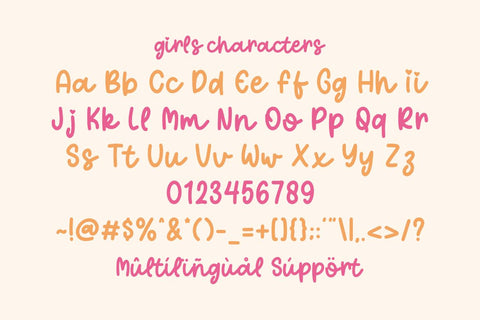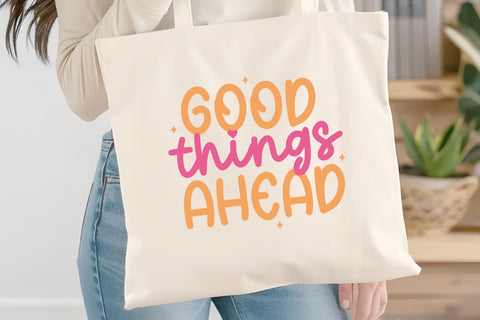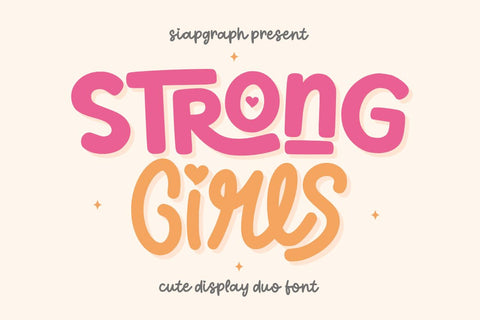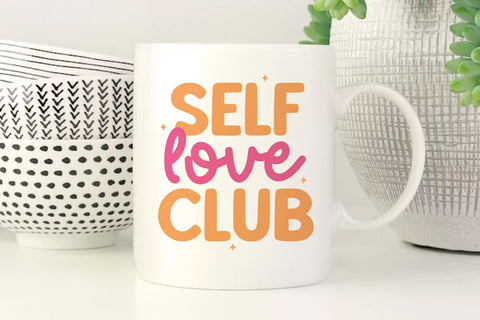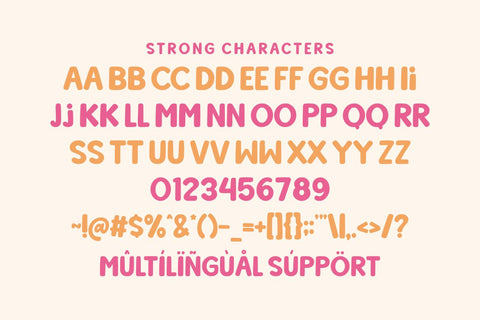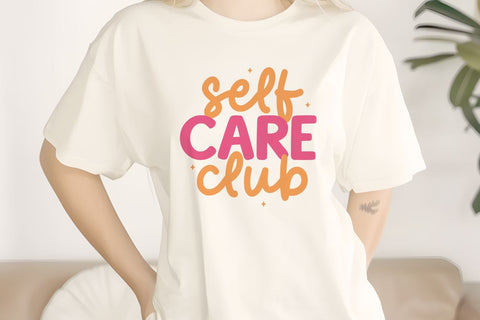
Strong Girls - Playful Display Duo Font
Strong Girls is a charming Cute Display Duo Font that radiates confidence, positivity, and a sweet, handcrafted personality. This pack features a bold, chunky display font paired with a playful handwriting script, allowing you to create perfectly balanced and eye-catching designs with unique heart accents. Its clean and solid construction is specifically optimized for the crafting community, ensuring a seamless and frustration-free experience for vinyl cutting, sublimation, and high-quality digital printing.
Perfect for: creating high-impact SVG cut files, empowerment-themed t-shirts, personalized notebooks, kids' party decorations, cute stickers, custom mugs, and uplifting social media graphics. Whether you are a professional Print on Demand (POD) seller or working on a special DIY project, this font duo provides the ideal balance of readability and heartwarming charm.
Great for themes such as Women's Empowerment, Birthdays, Friendship celebrations, Children's Day, and Back to School projects, adding a bold, inspiring, and friendly personality to all your creative collections!